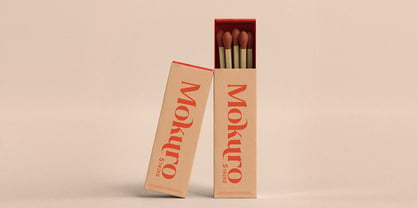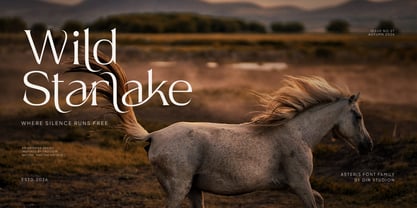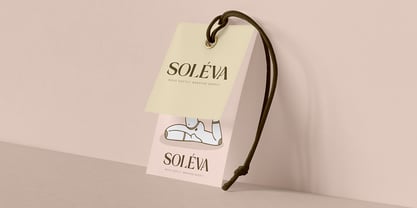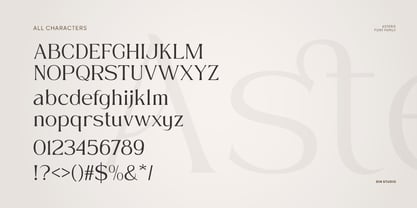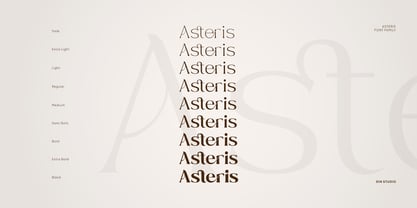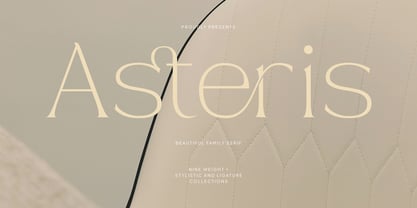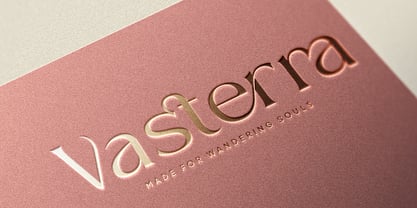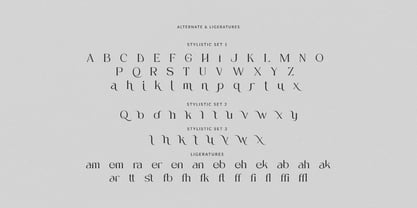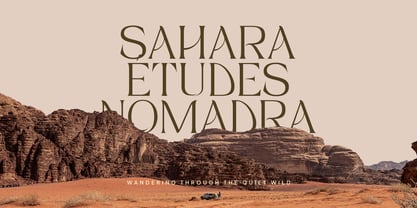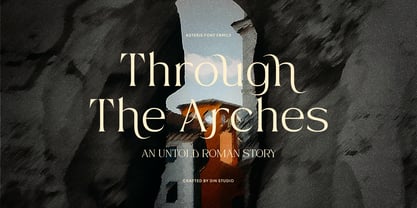
Asteris
by Din Studio
The Asteris Font Family was designed by Donis Miftahudin and published by Din Studio. Asteris contains 9 styles and family package options. More about this family
Asteris is a premium modern serif font family. for designers who value both style and functionality. Designed to adapt to a wide range of creative projects, Asteris includes nine weights, from Thin to Black, giving you complete control over your typography. This extensive range allows you to build clear visual hierarchies, create expressive layouts, and maintain a consistent brand identity across every design. Furthermore, its timeless beauty and modern character make it an essential typeface for designers who value both style and functionality. In addition, enjoy the features here.
Features:
• Ligatures
• Stylistic Sets
• Multilingual Supports
• Numerals and Punctuations
Asteris fits in logos, quotes, name cards, branding, posters, and many more designs. Find out more ways to use this font by taking a look at the font preview.